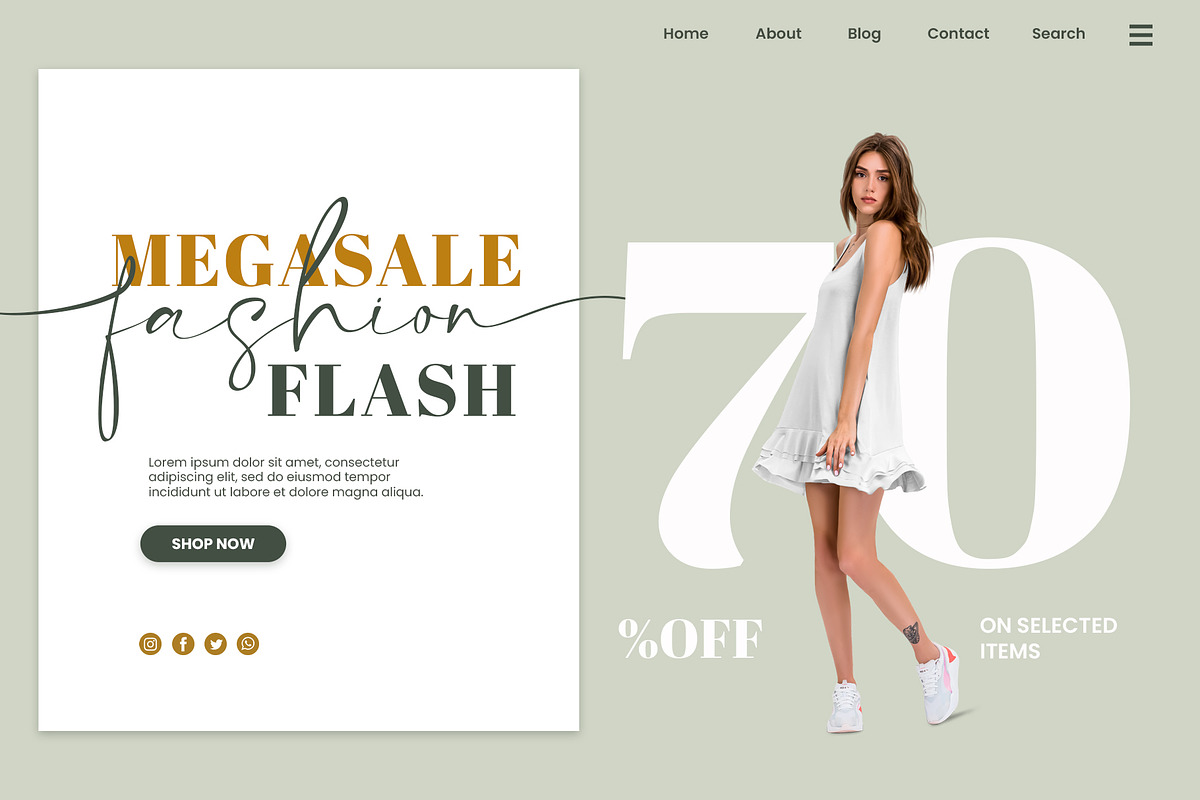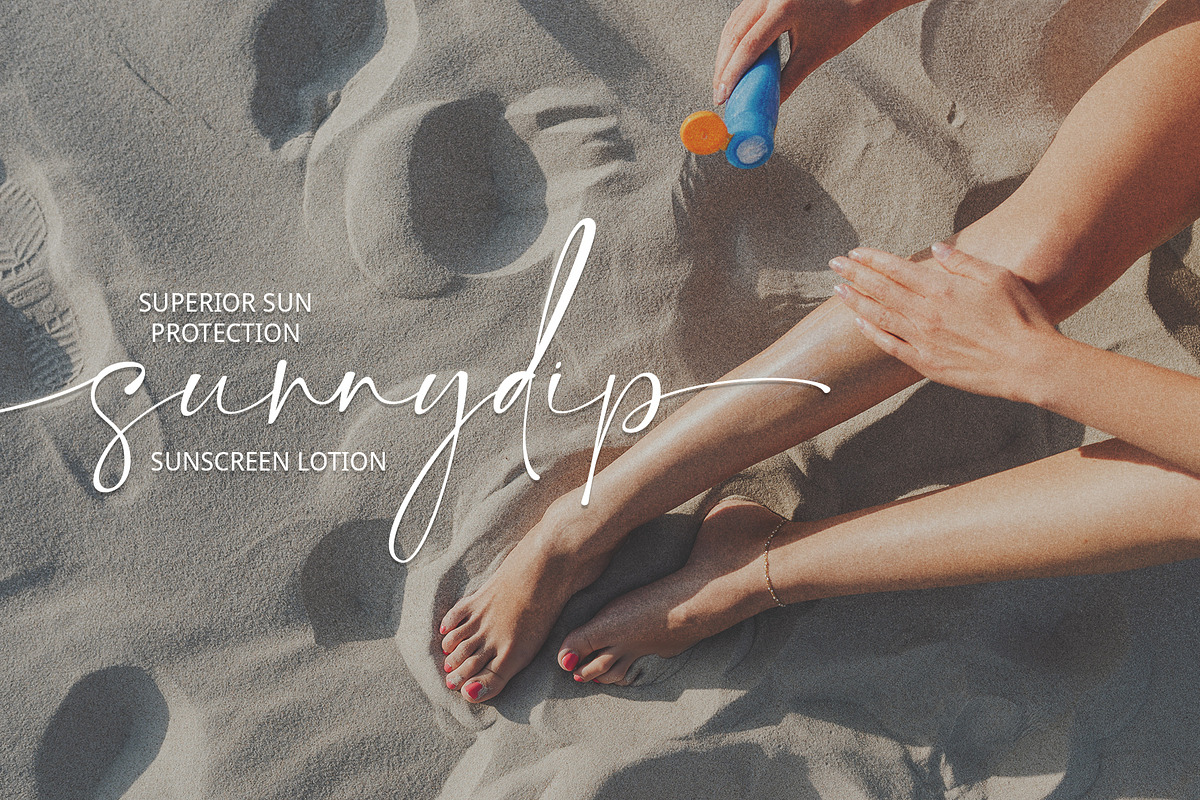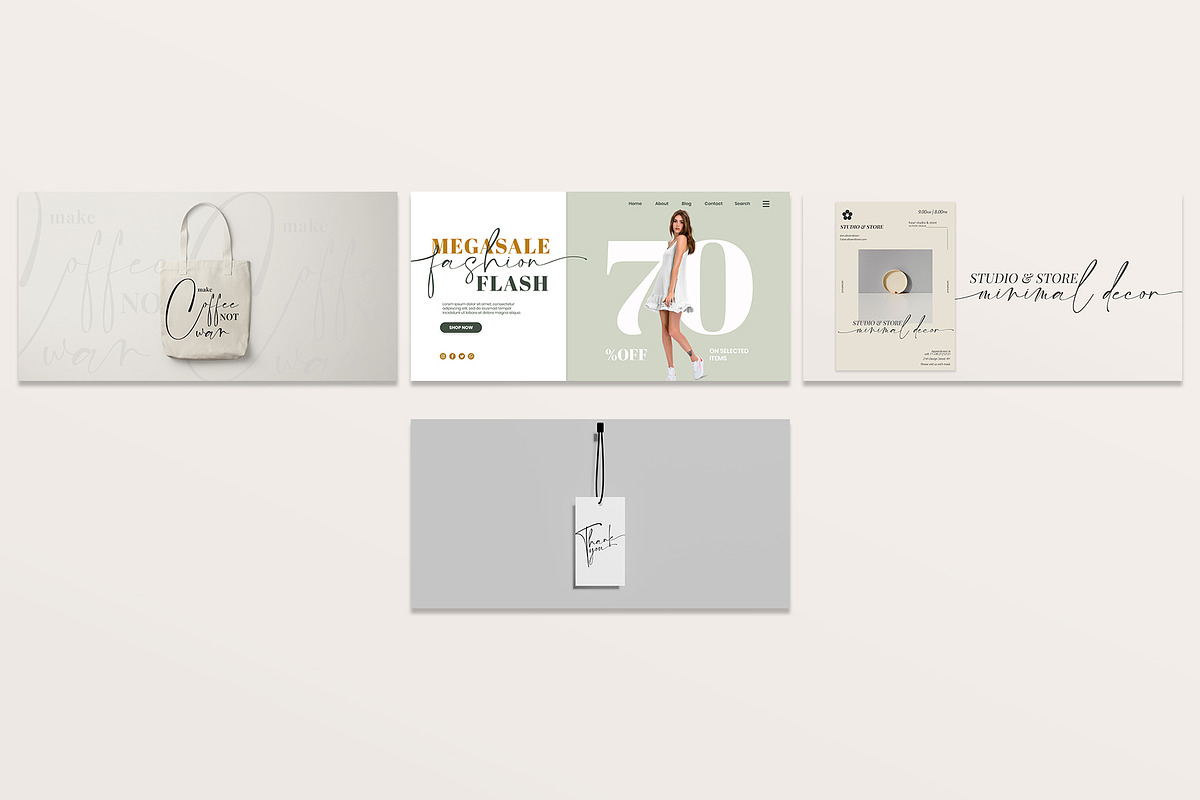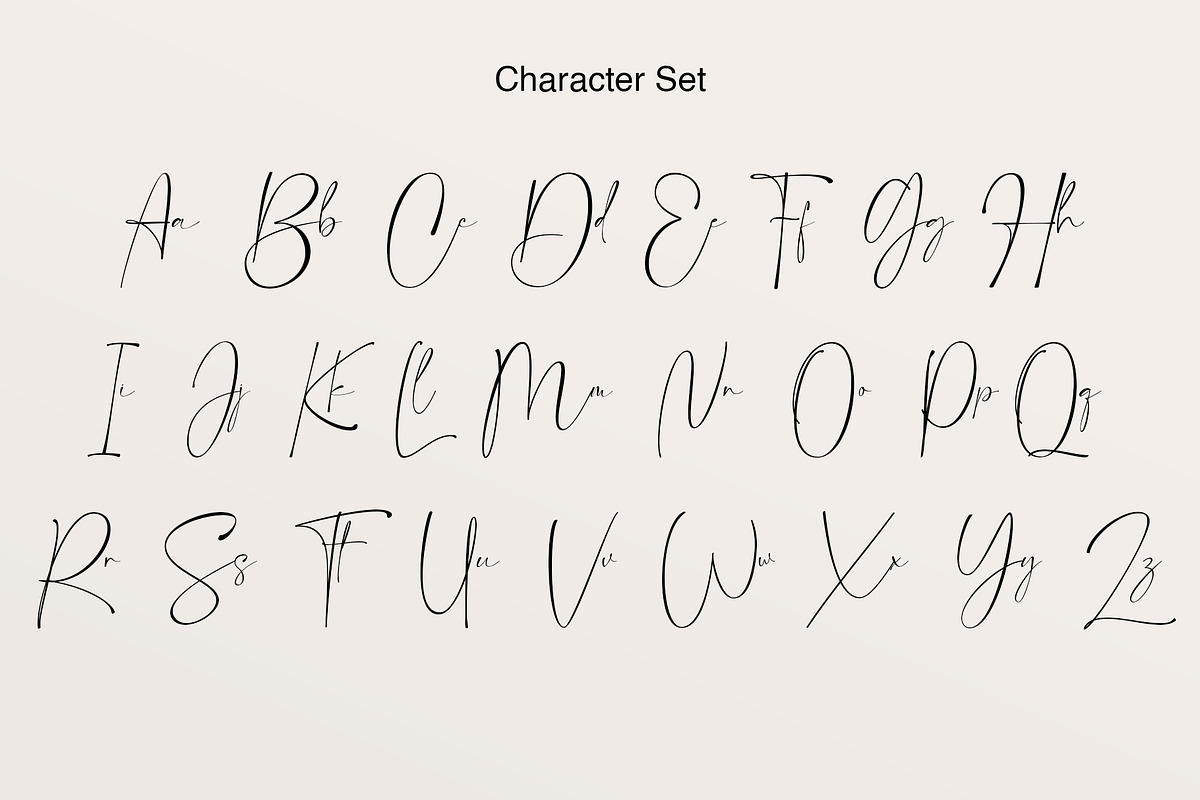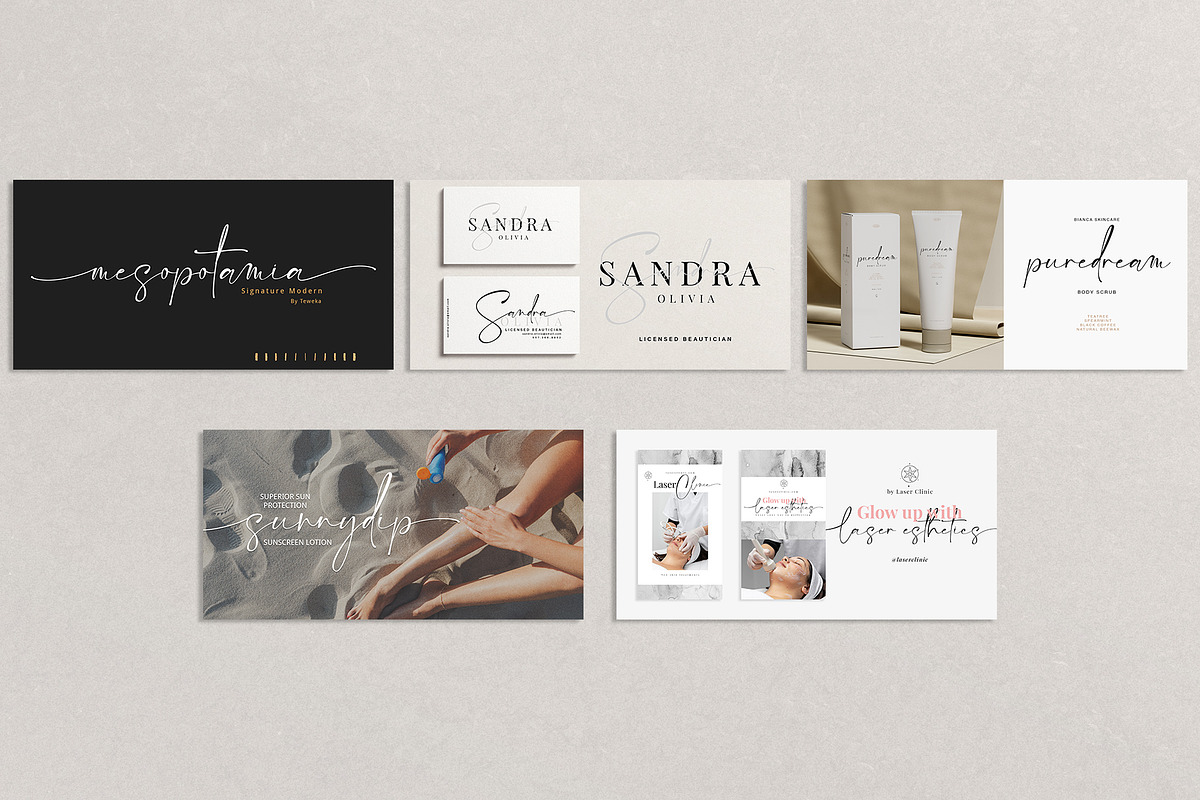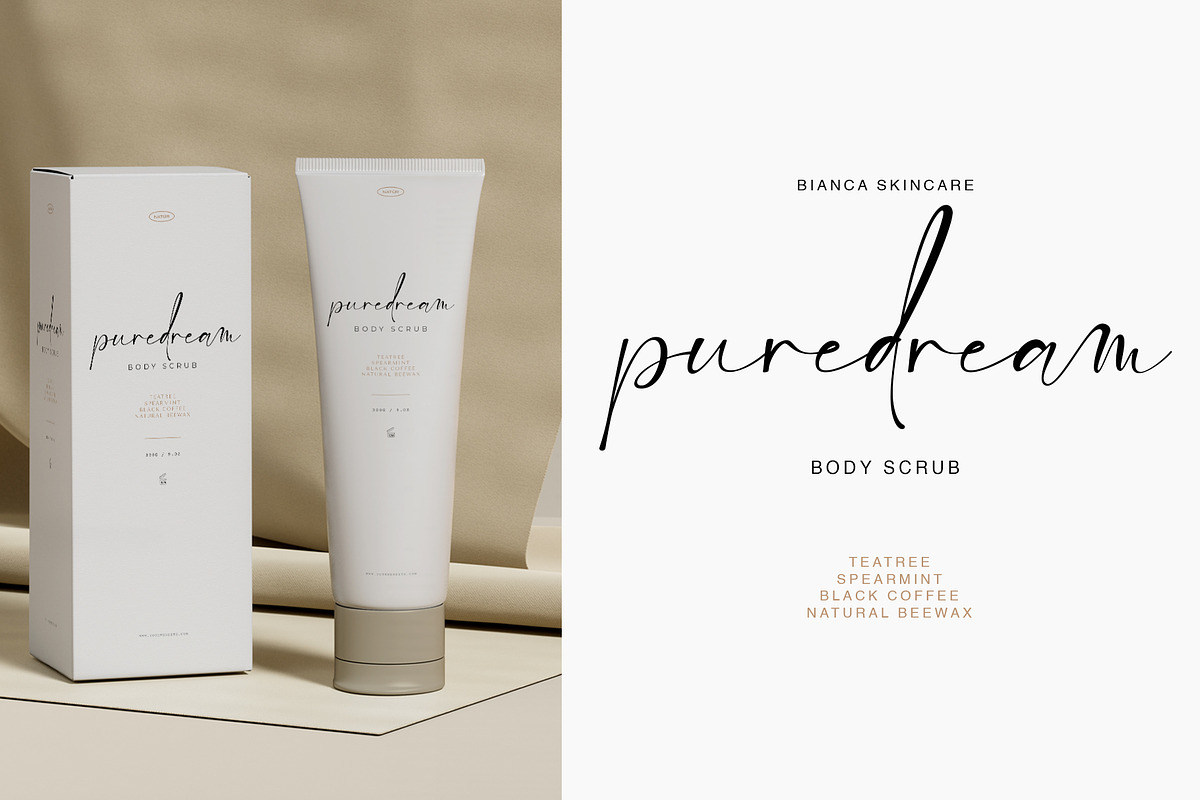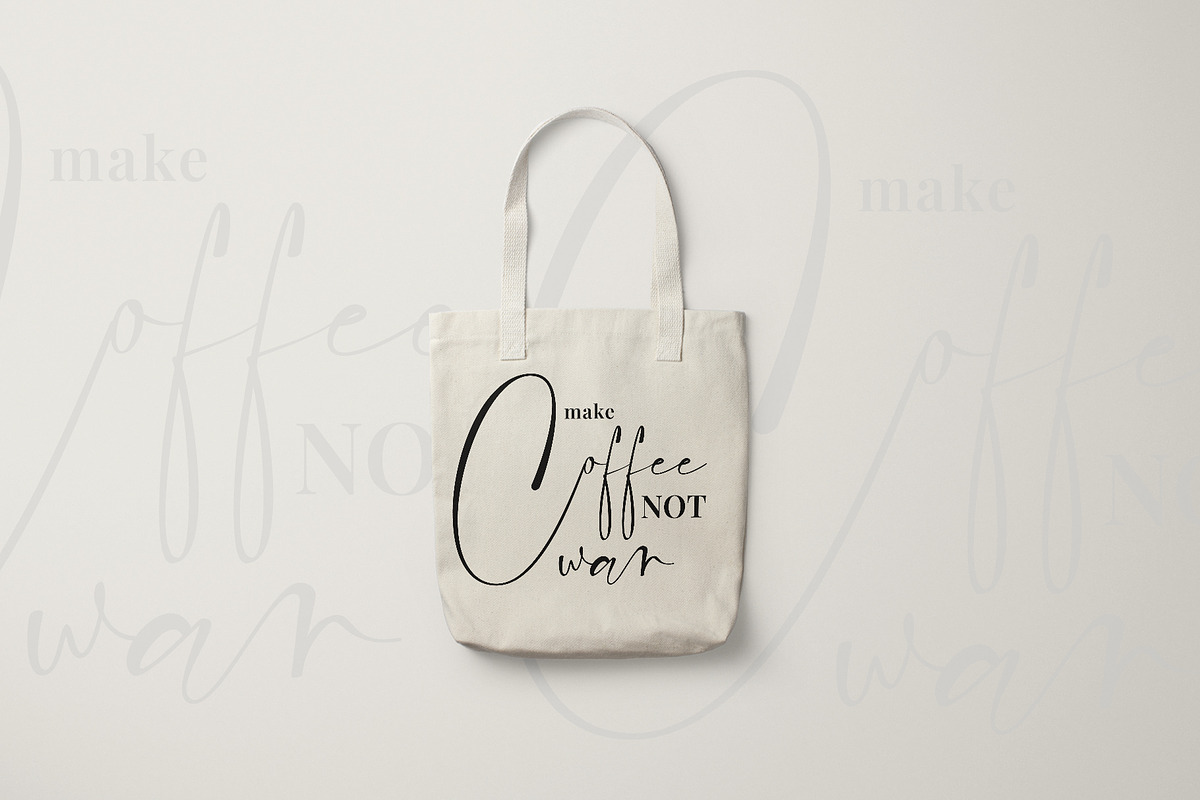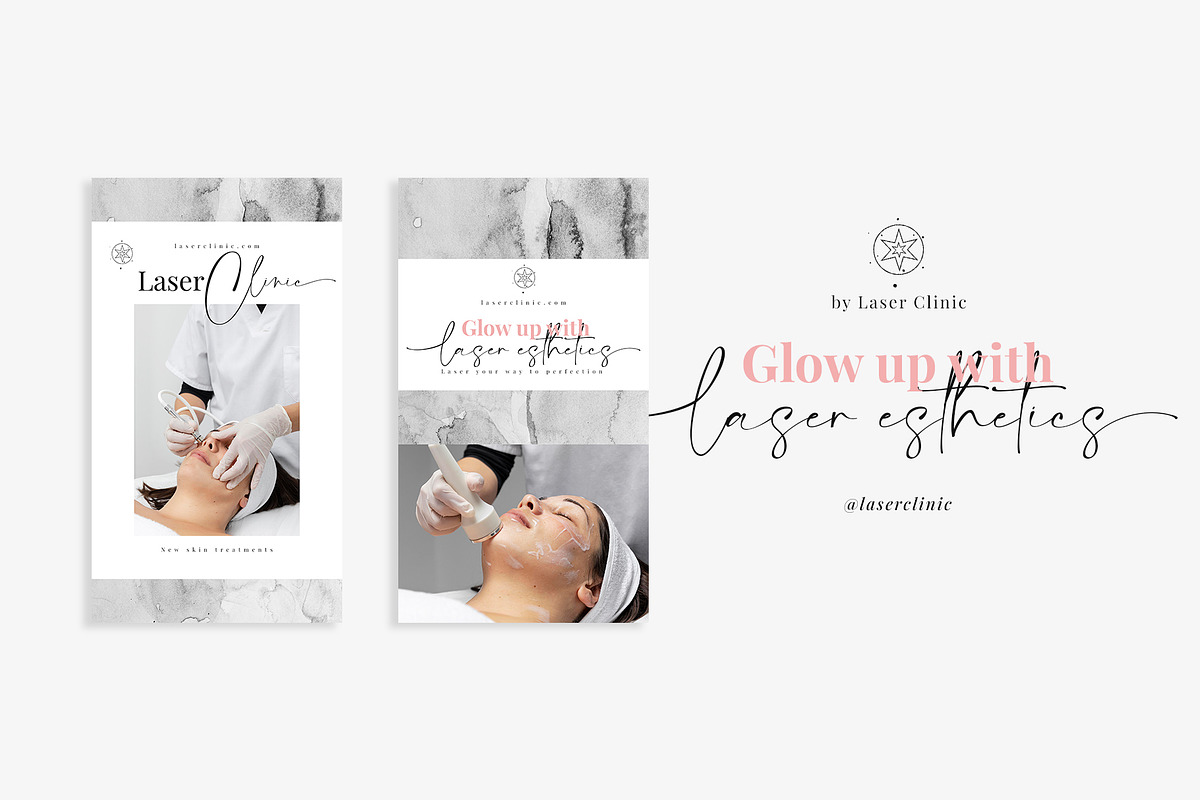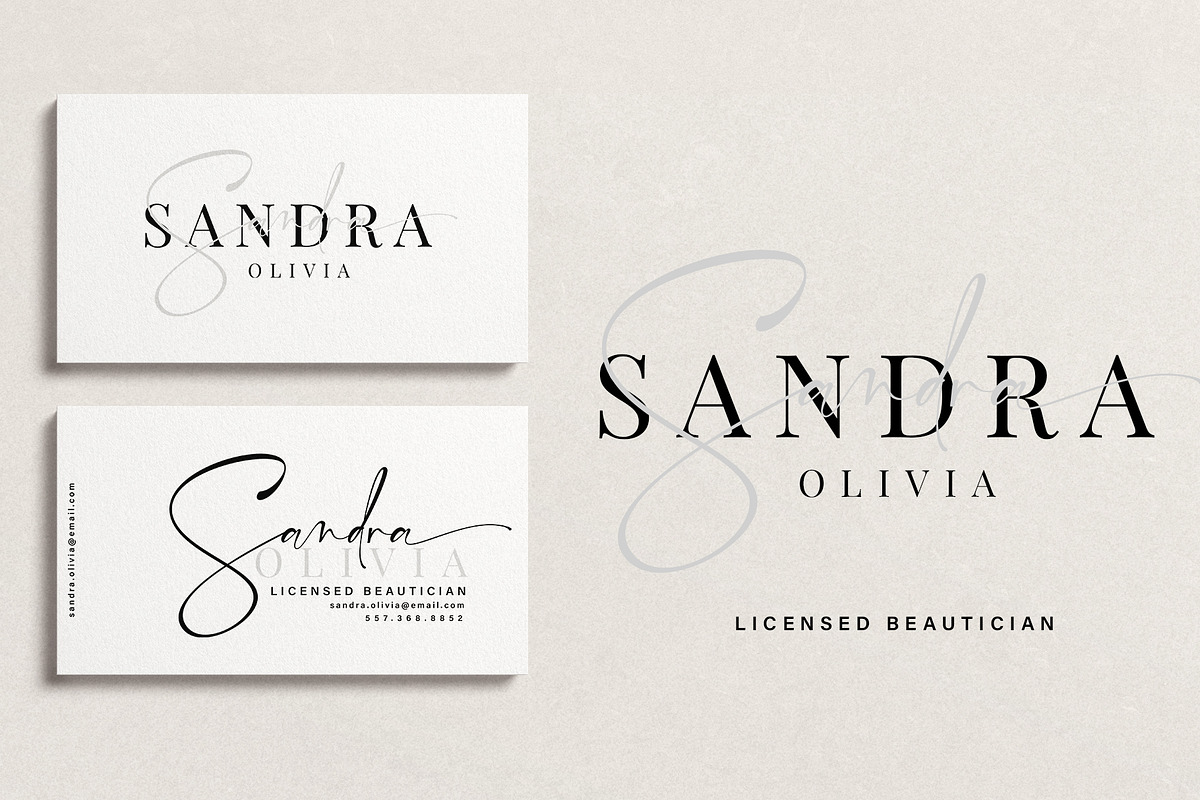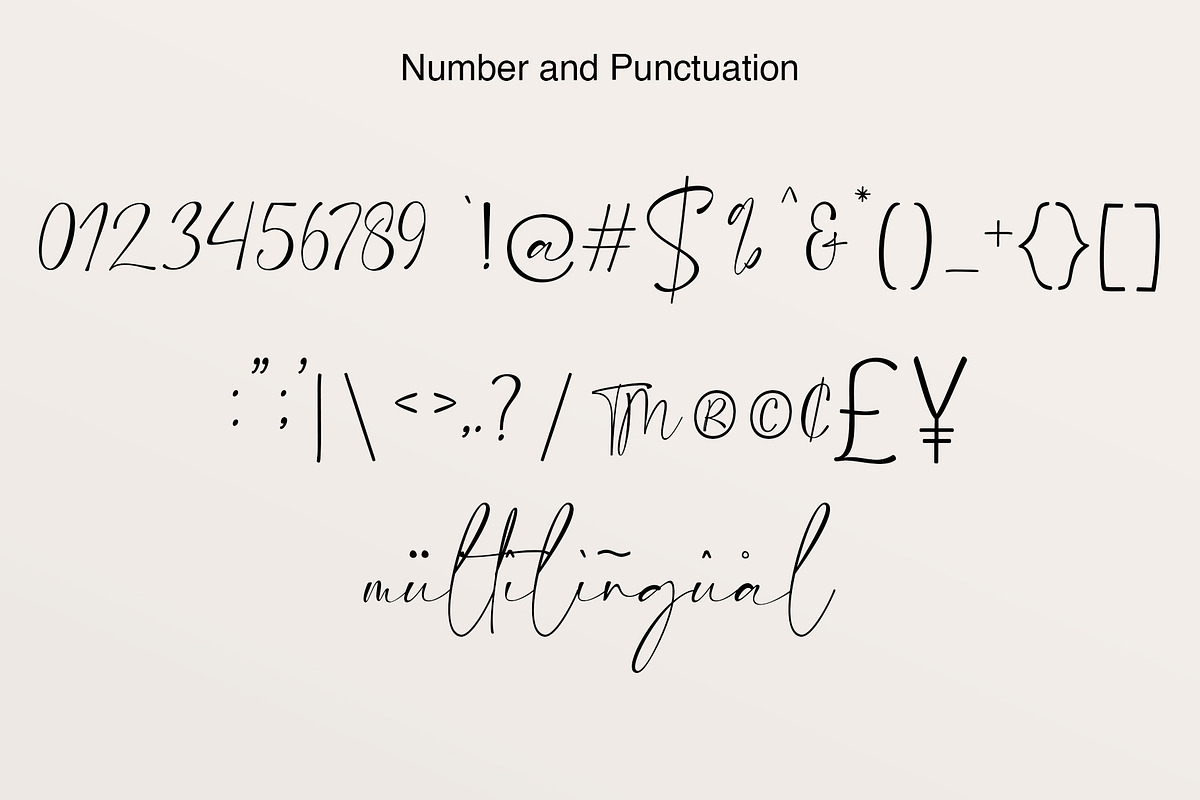
Mesopotamia
Introducing New Mesopotamia Modern Signature, created with signature letters in mind. This font also has Swash, Ligature in it. You can use it as a logo, packaging, headline, poster, t-shirt, greeting card, wedding invitation, etc.